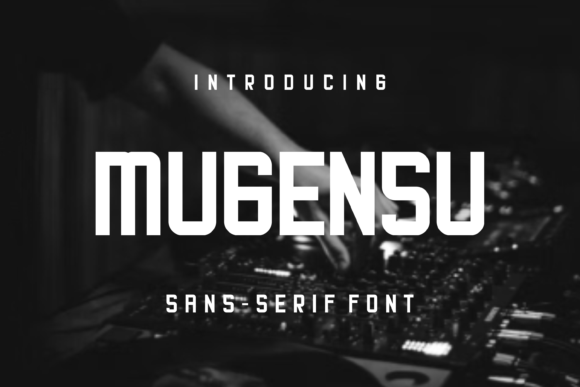
Introducing Mugensu, the font that will revolutionize your business presentations! This modern sans serif typeface exudes sophistication and professionalism, capturing the essence of your brand with every stroke. Whether you're crafting captivating logos, sleek brochures, or eye-catching websites, Mugensu will transform your designs into masterpieces that command attention.
With its clean lines and subtle curves, Mugensu conveys a sense of elegance and clarity, making it the perfect choice for any business seeking to make a lasting impression. Experience the power of Mugensu today and elevate your communications to new heights!